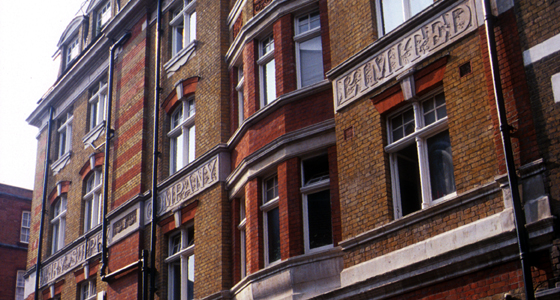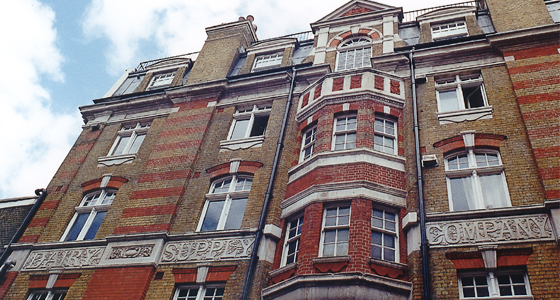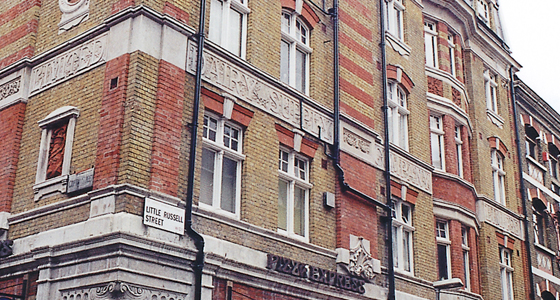
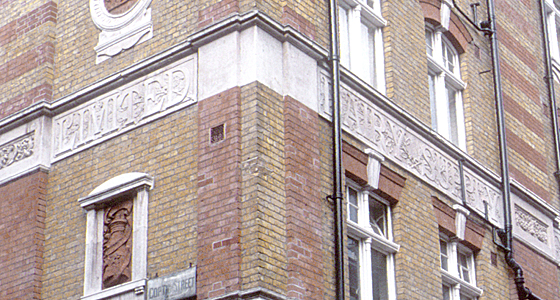
Dairy Supply Company Coptic Street / Little Russell Street
The first Pizza Express (1965) in the country, and an example of old lettering surviving. Here it is very much an integral part of the original building and is accompanied by various monograms of the company initials. When the company expanded, they copied their original lettering on the small extension they built alongside in Little Russell Street. In total there are seven places on the two façades where the company name or initials appear. The building – including the lettering – was refurbished in 1999.
The main company name facing both streets is carved in low relief and intertwined with leaves.